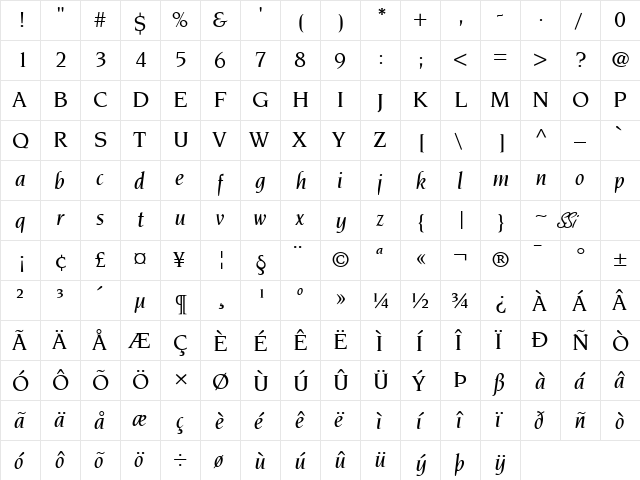
Trident Medium SSi Medium Italic Font Preview
Trident Medium SSi Medium Italic
Design Context for Trident Medium SSi Typeface
Trident Medium SSi offers clean, dependable letterforms without strong stylistic allegiance, making it a practical choice for designers who need flexibility. Its italic angle brings a sense of urgency and motion to the letterforms.